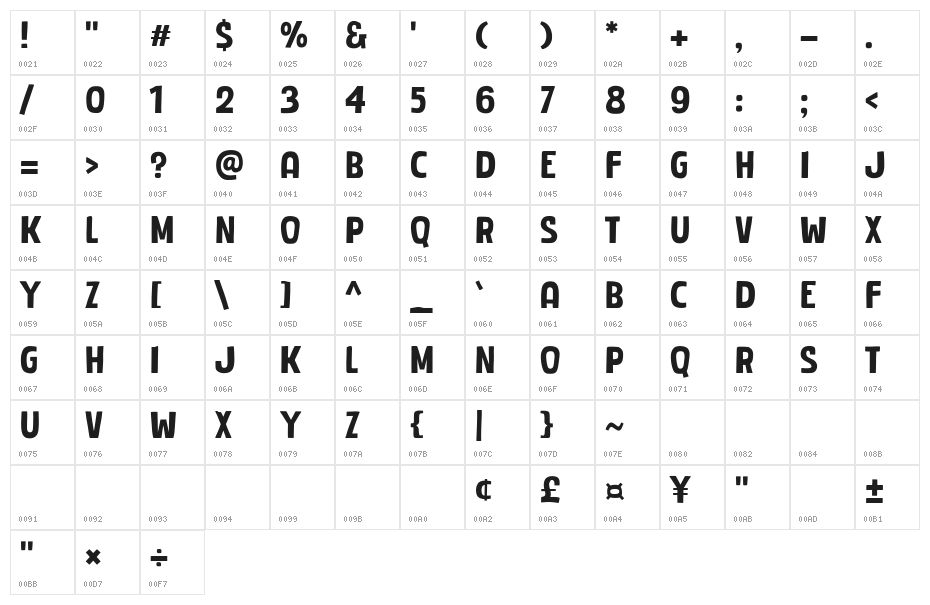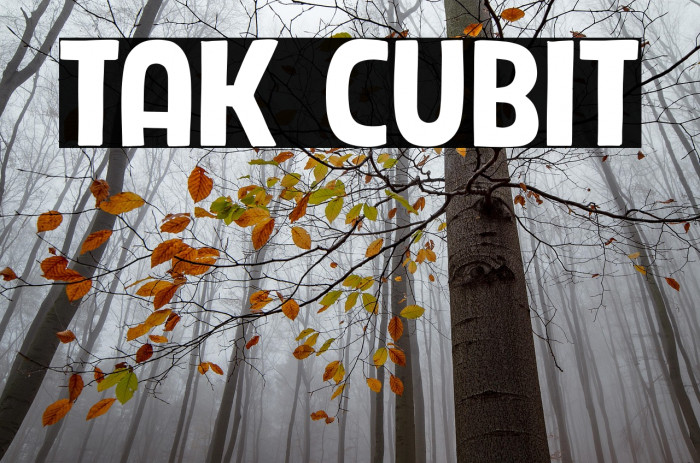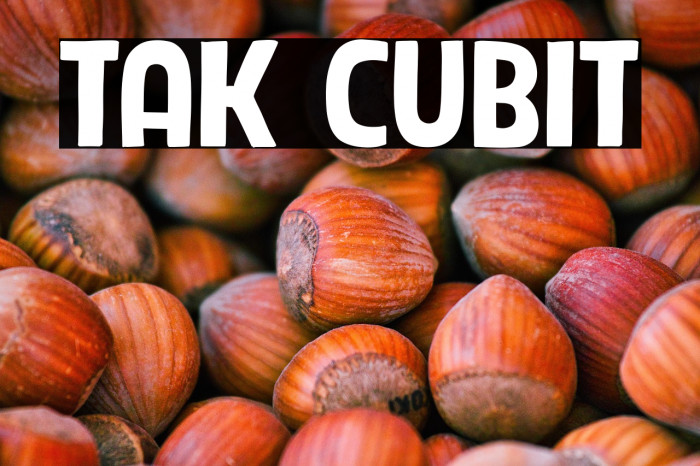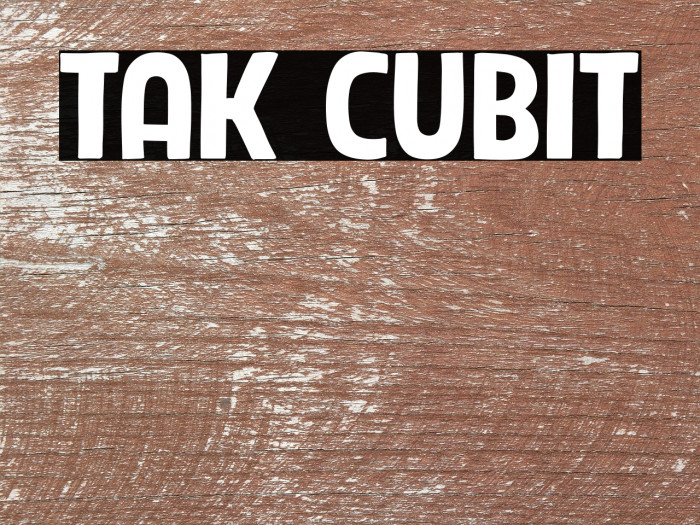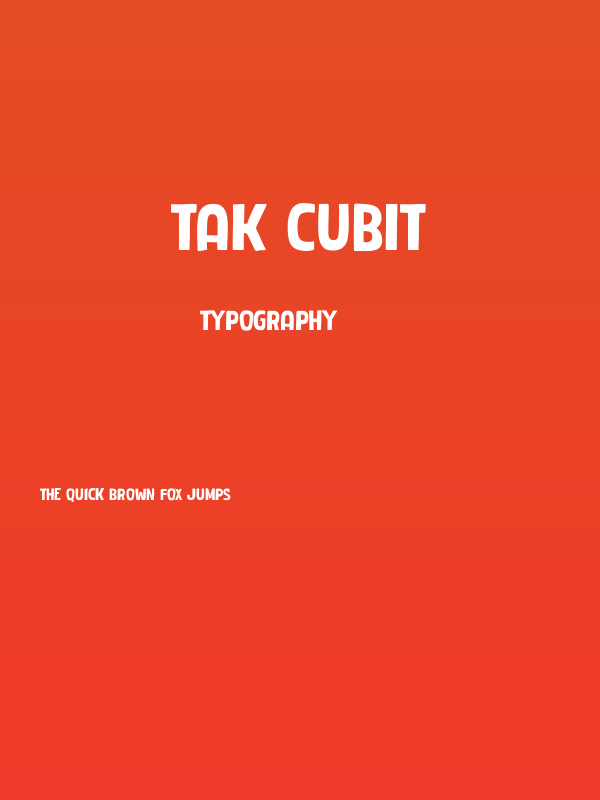
Tak Cubit Font
Tak Cubit Description
This font features bold, rounded characters with a playful and slightly retro aesthetic. The letters are uniformly thick, giving a strong and impactful presence. The rounded edges soften the overall look, making it approachable and friendly. The numbers and special characters maintain the same boldness and rounded style, ensuring consistency across all glyphs. This font is highly legible and stands out due to its unique combination of boldness and rounded forms.
| Overall Style | Playful, Retro |
| Proposed Projects | Ideal for branding, posters, children's books, and playful graphic designs. |